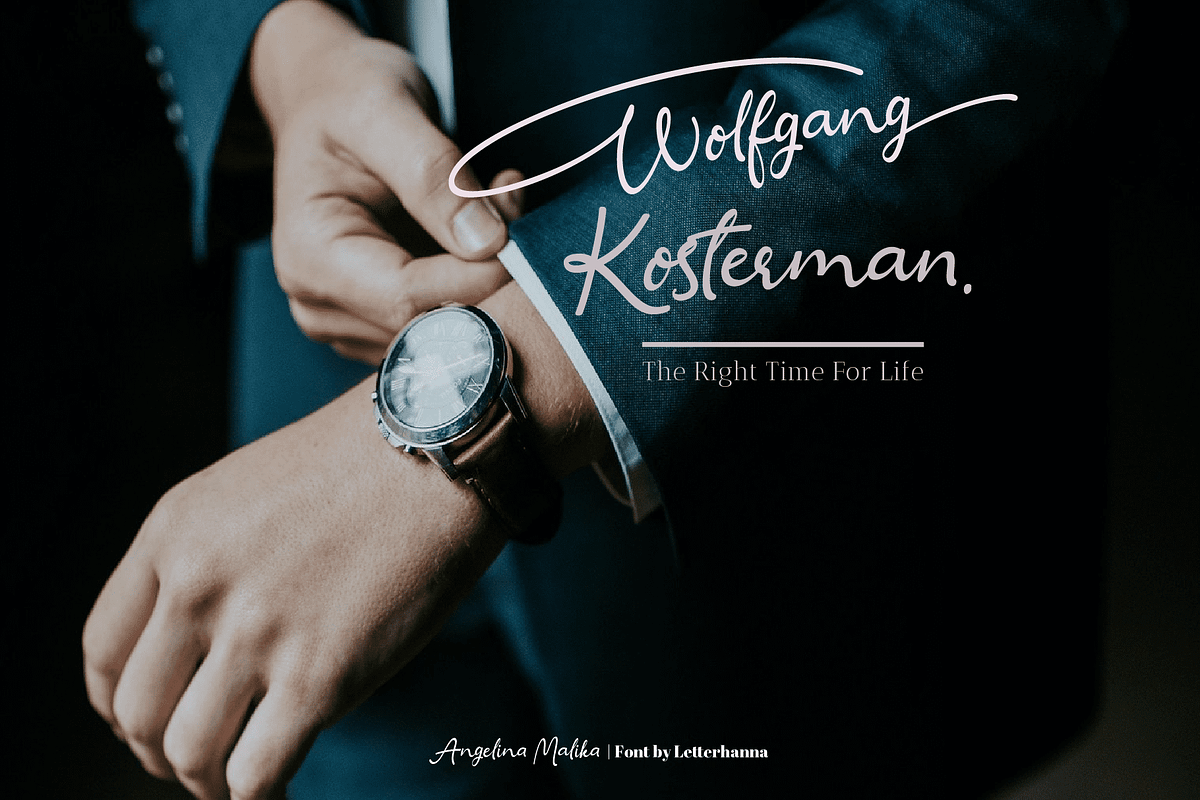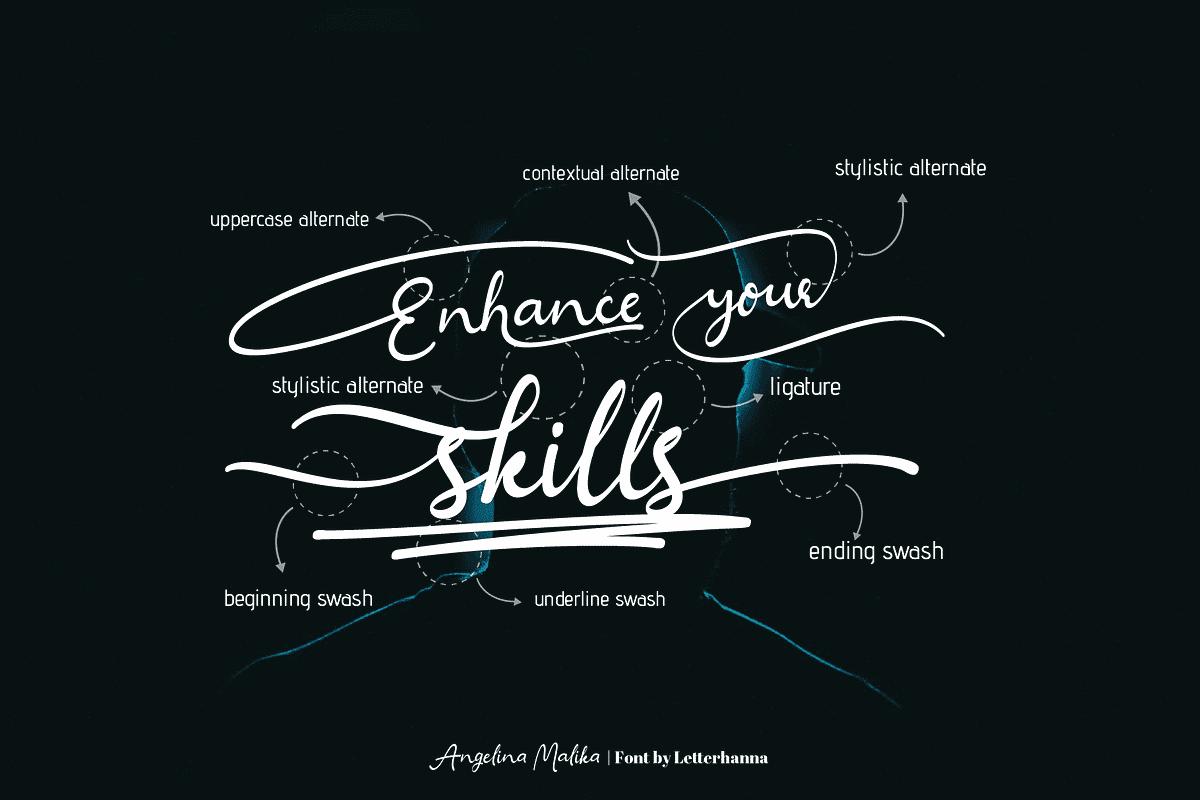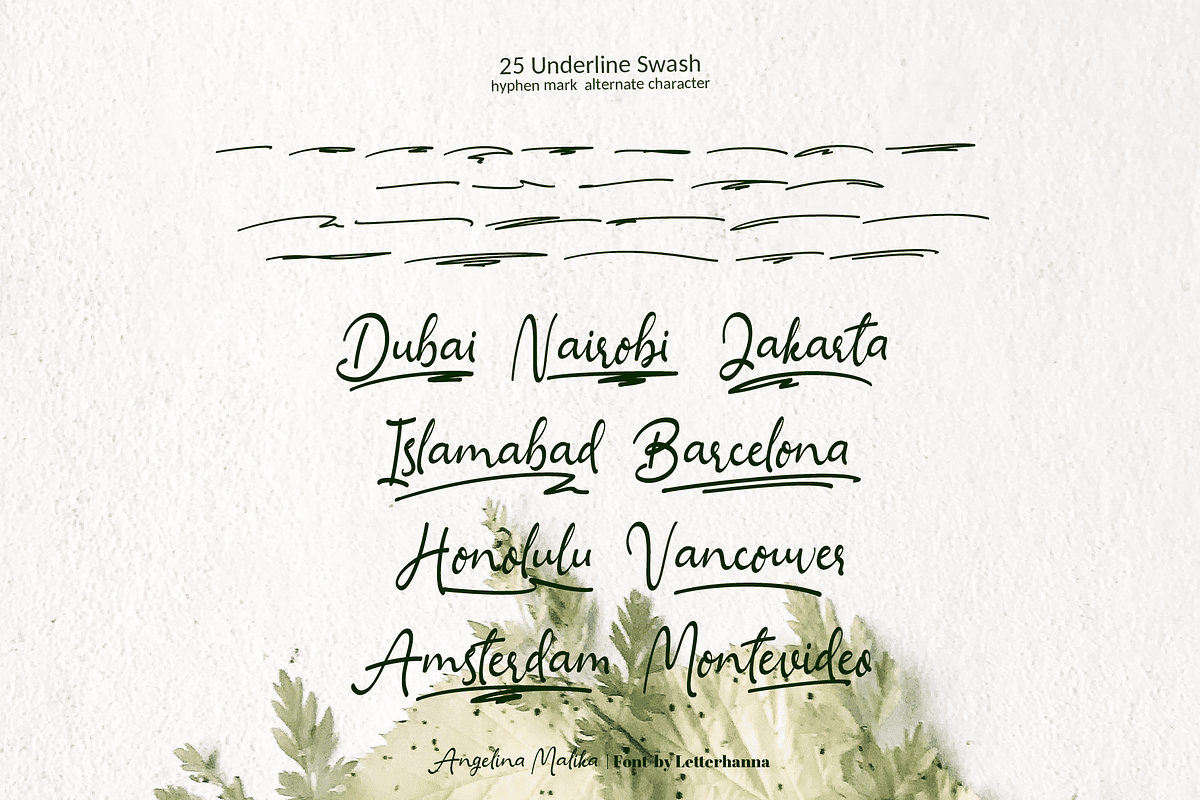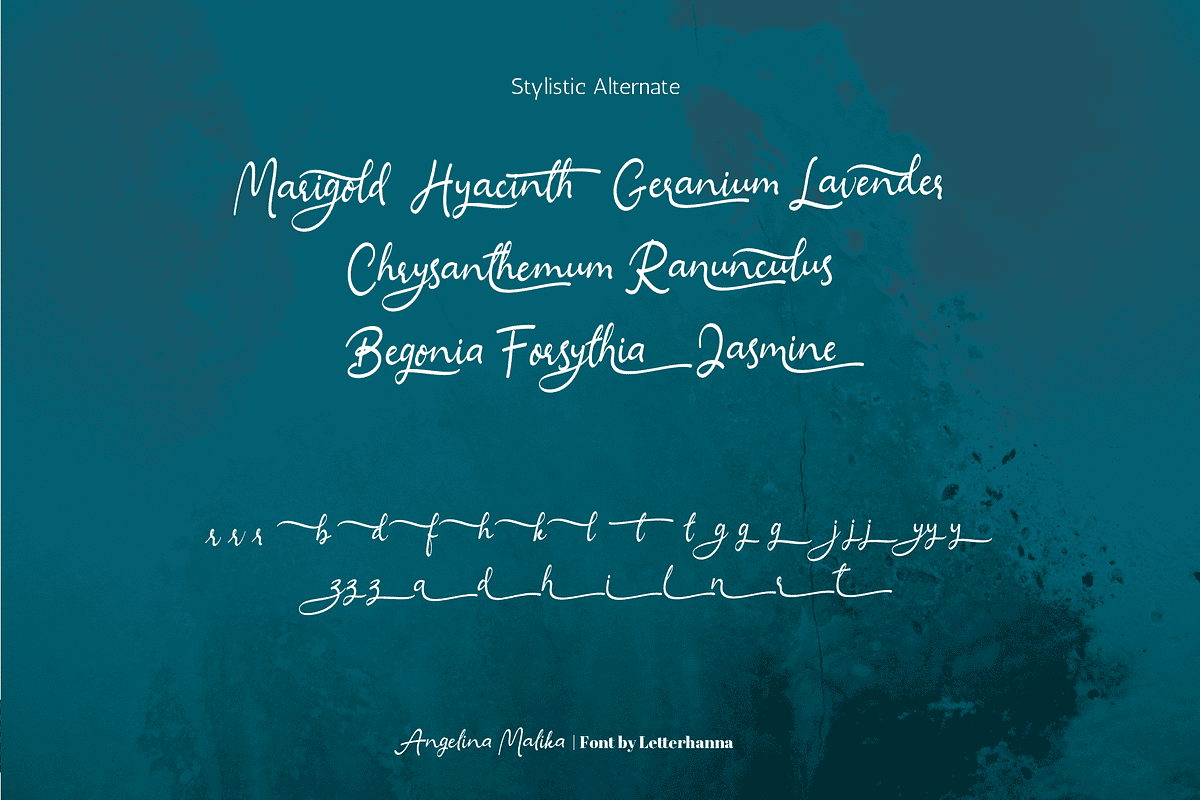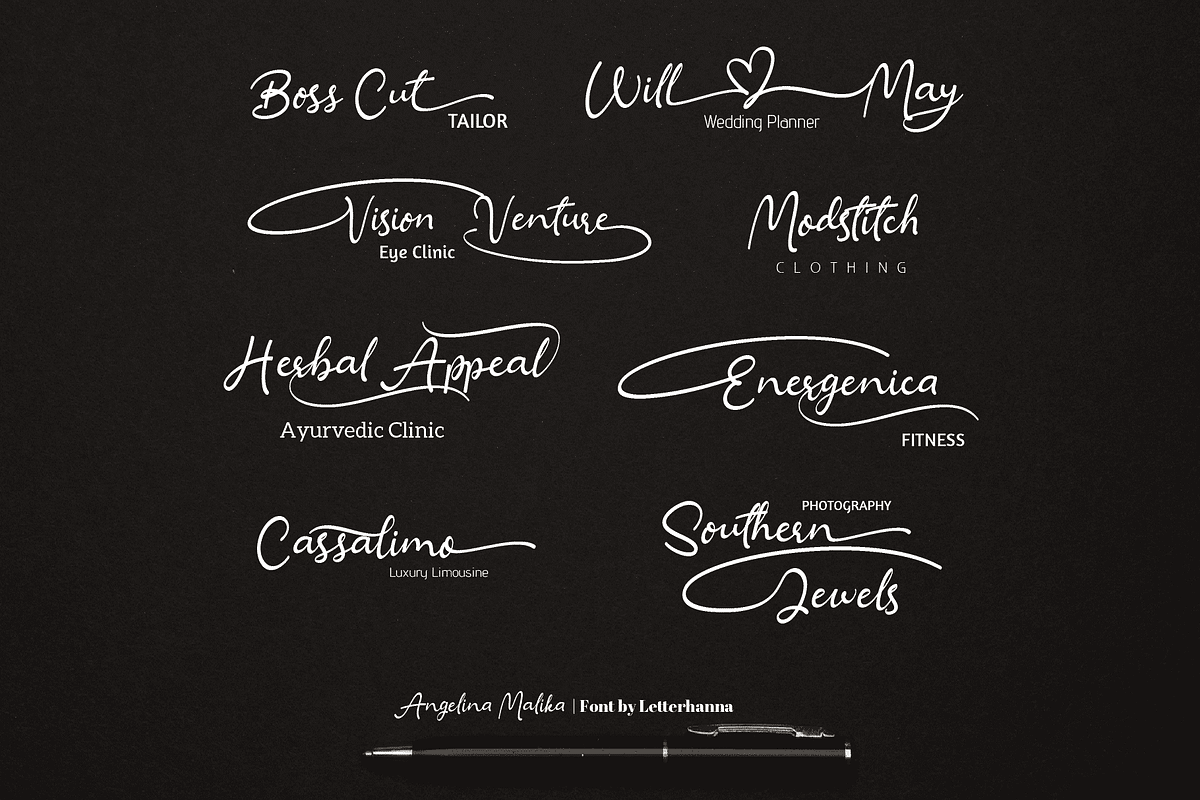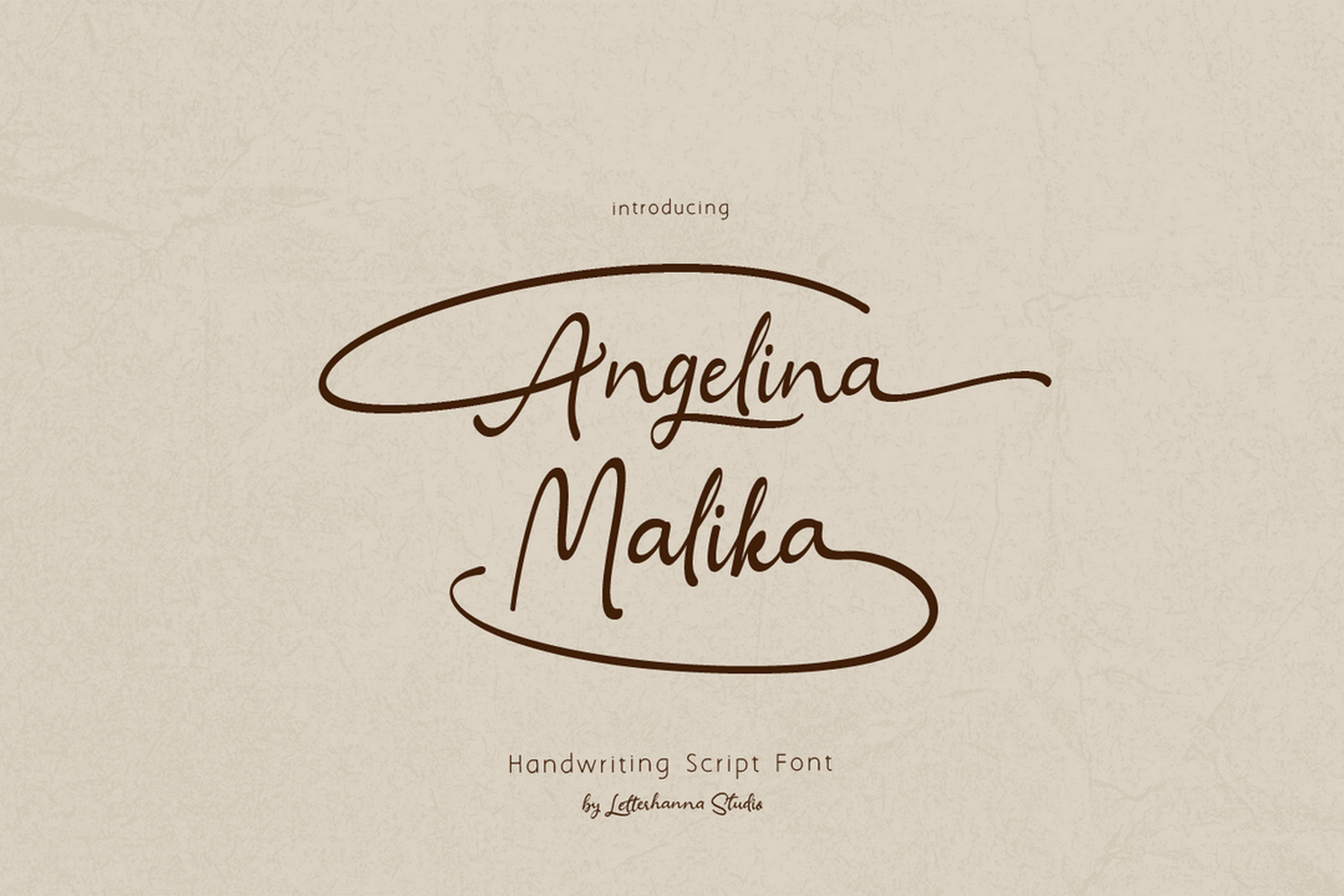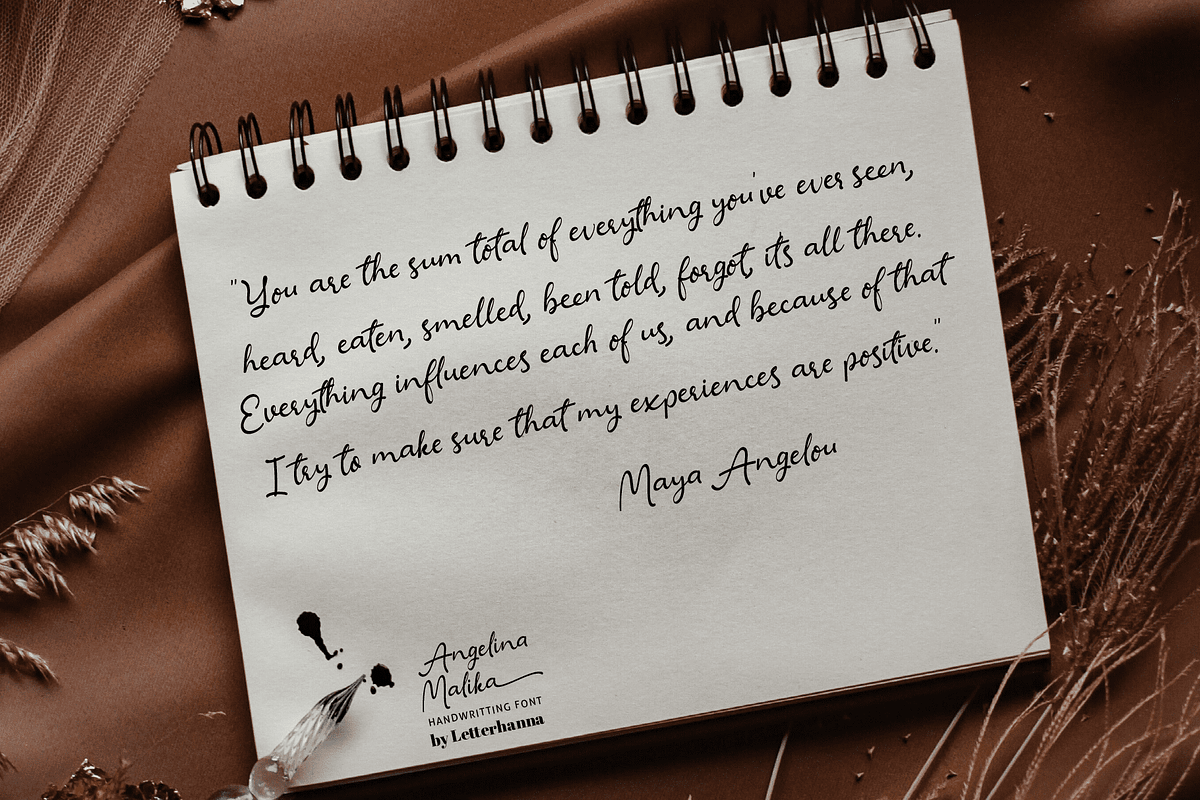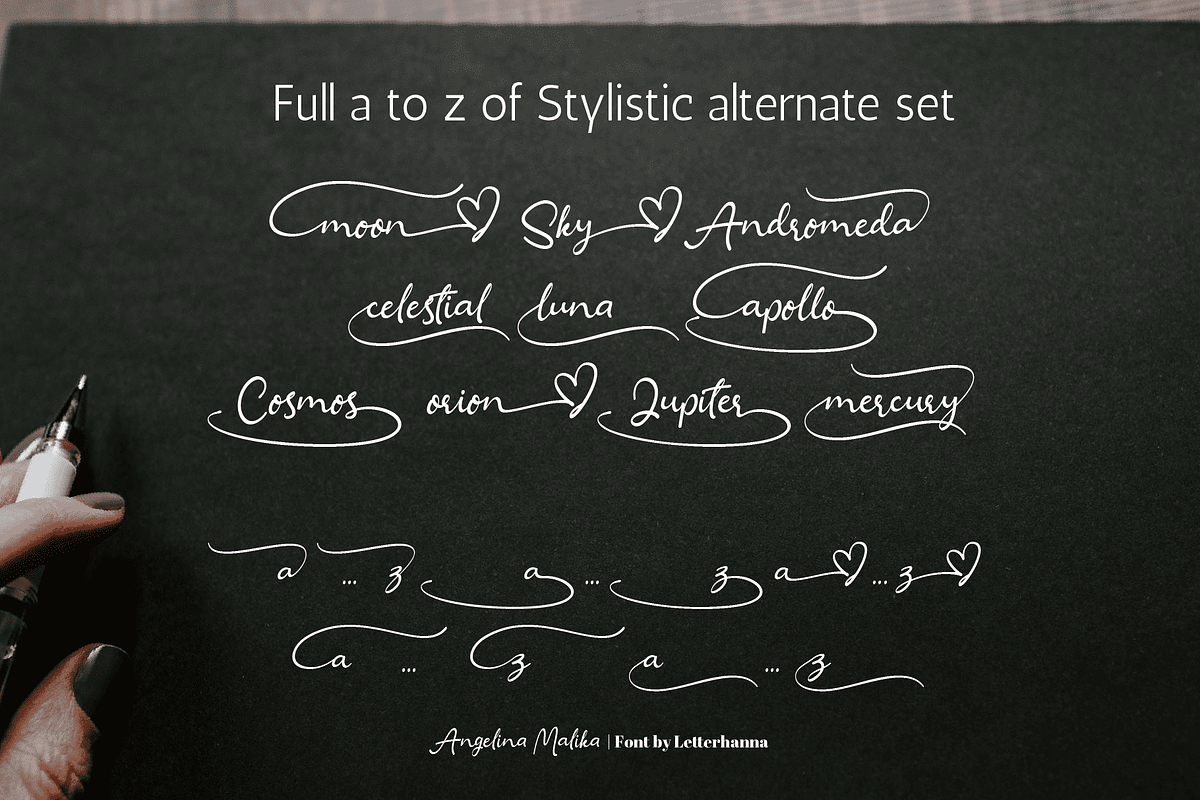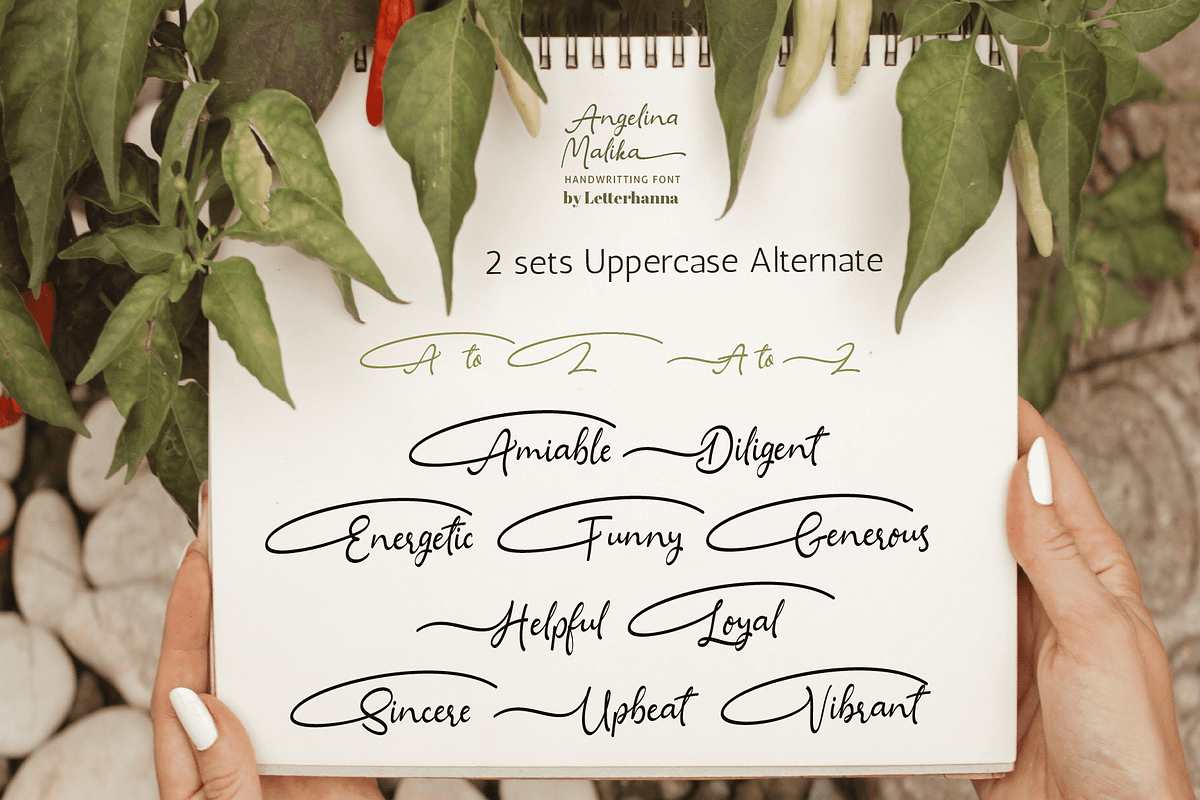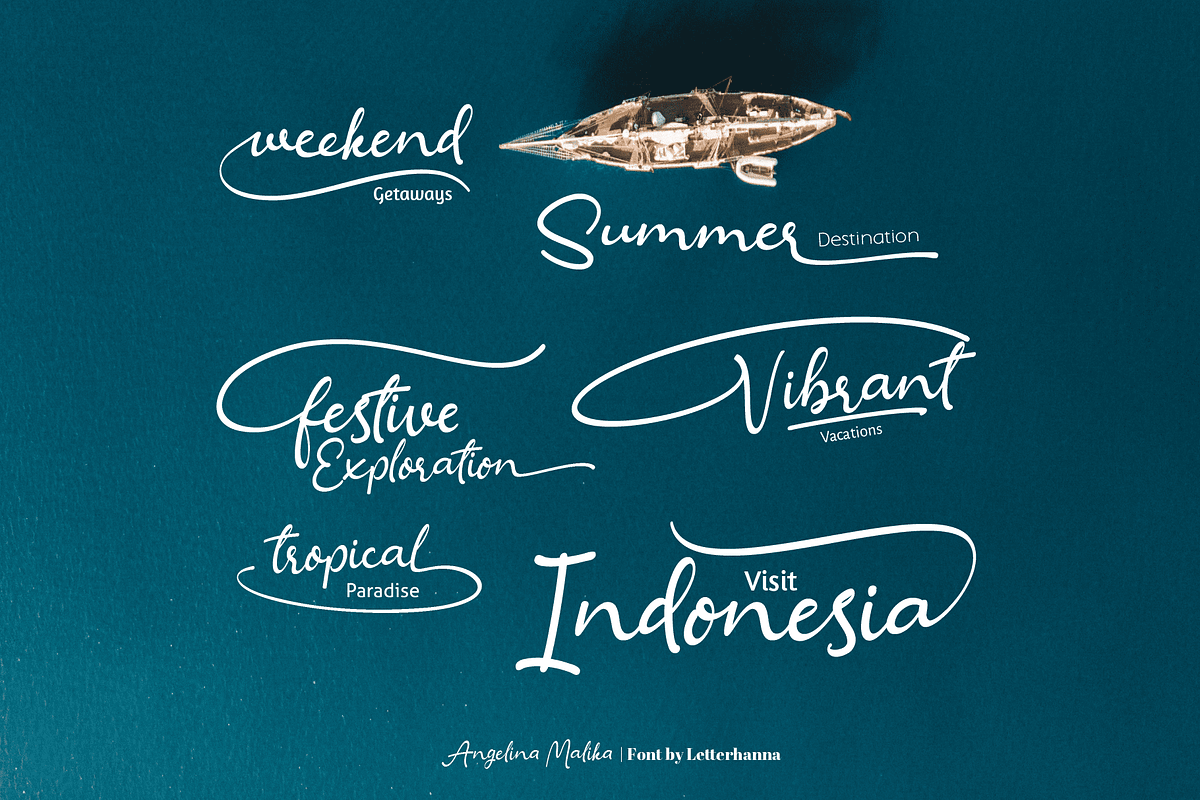
Angelina Malika Font
Angelina Malika is a bold calligraphic lettering script font. Fall for its ravishing style and use it to create gorgeous wedding invitations, beautiful logo, personal branding, eye-catching social media posts, and much more!
Angelina Malika contains a full set of lower & uppercase letters, a large range of punctuation, numerals, and multilingual support.
Angelina Malika Script Font was created to look as close to a natural handwritten script as possible by including natural-looking ligatures, and two full set of lowercase alternates tail, the tail will change using "contextual alternate" according to the letter in front of it. There are also 25 underline swashes included.
Angelina Malika Script Font also comes with more OpenType features like Stylistic Alternates, Initial Forms, Terminal Forms, beginning-of-word swashes and end-of-word swashes.
Beginning and ending swashes
Underline swashes
Stylistic alternate
Contextual alternate
Uppercase alternate
Full set of lowercase swash
Full set of uppercase swash